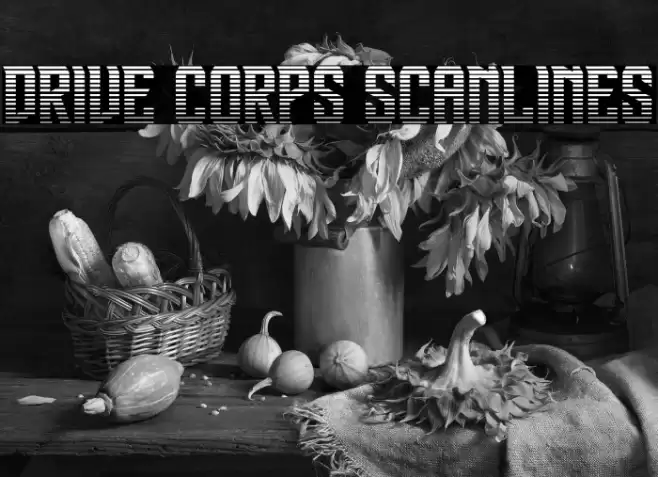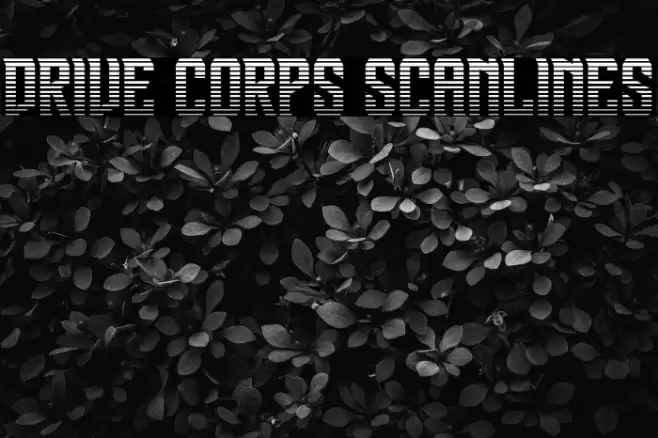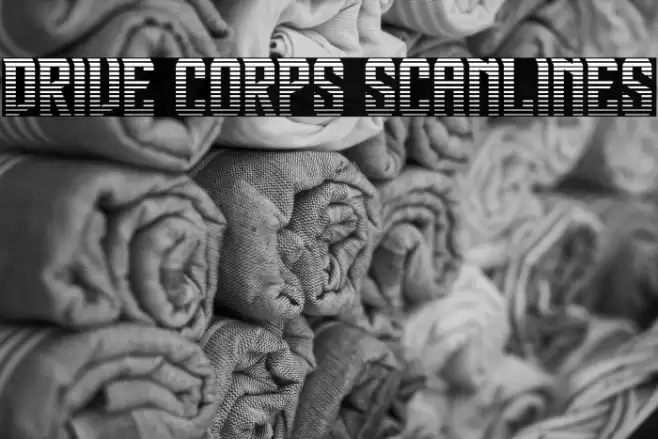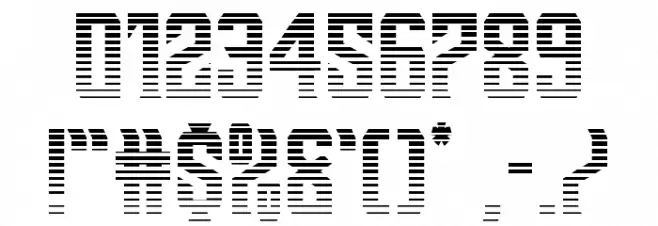
Drive Corps Scanlines Font
Drive Corps Scanlines Description
This font features a unique design with horizontal scanlines cutting through each character, creating a futuristic and digital aesthetic. The uppercase and lowercase letters maintain a consistent height, giving the font a uniform appearance. The characters are bold and wide, with a geometric structure that enhances readability despite the intricate line pattern. The numbers and special characters follow the same design principles, ensuring a cohesive look across all glyphs. This font's distinct style makes it stand out, ideal for projects that require a modern and tech-inspired feel.
A bold, futuristic font with horizontal scanlines and a digital aesthetic from Uncategorized fonts.
- Proposed Projects: Ideal for tech-related branding, digital art, video game design, and futuristic-themed posters.
- Width: Expanded
- Overall Style: Futuristic